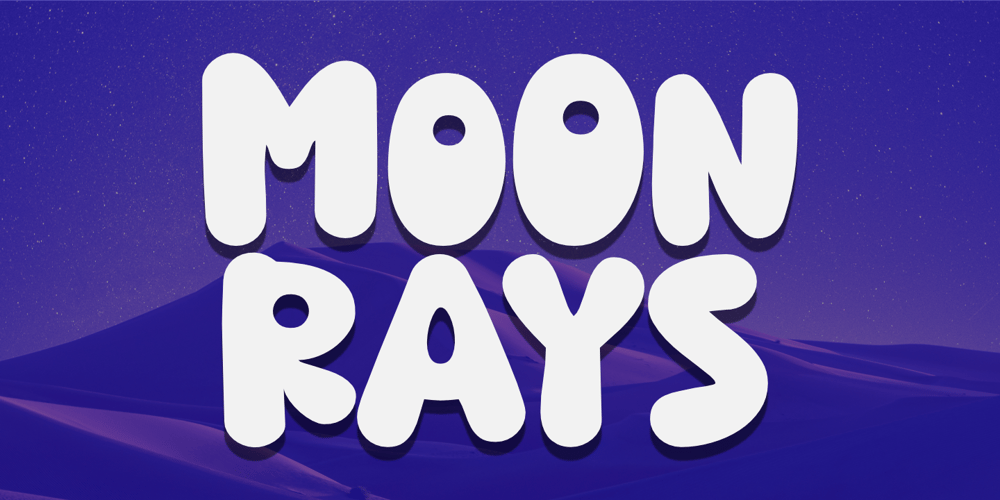
Moon Rays
Moon Rays font
Moon Rays Font Family was designed by Aldy Sidik and published by Epiclinez. Moon Rays contains 1 styles and family package options. Moon Rays is a bold and playful display font, suitable for all children’s designs, product packaging, stationary art, apparel designs, and more fun and creative ideas!So what’s included: Basic Latin A-Z & a-z. Numbers, symbols, and punctuations Multilingual Support. Accented Characters : ÀÁÂÃÄÅÆÇÈÉÊËÌÍÎÏÑÒÓÔÕÖØŒŠÙÚÛÜŸÝŽàáâãäåæçèéêëìíîïñòóôõöøœšùúûüýÿžß Thank You.